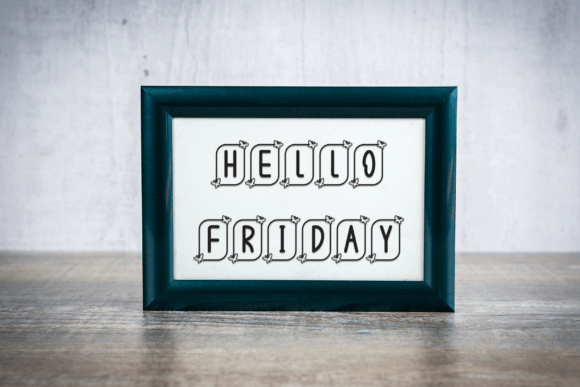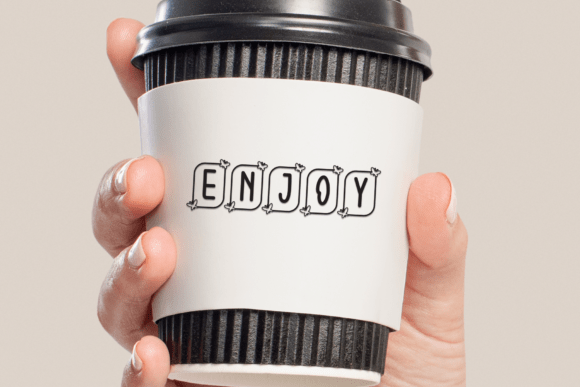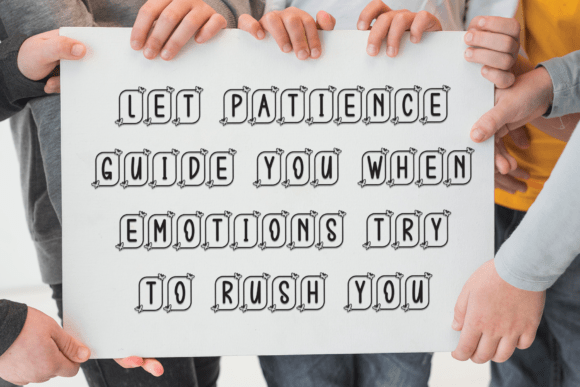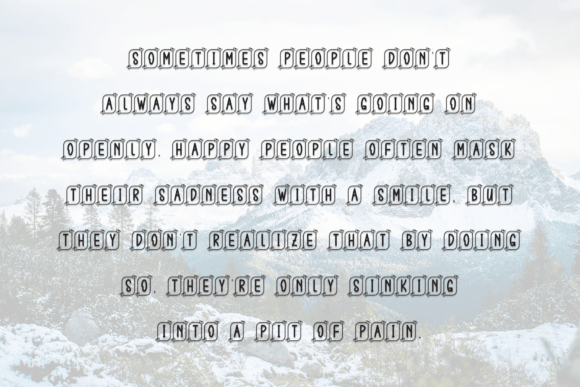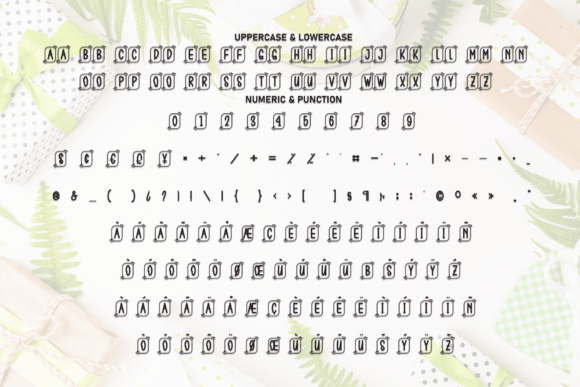
Happy Birthday Font: A Handcrafted Display Font to Infuse Joy and Cheer
Are you looking for a font that can add a touch of warmth and happiness to your designs? Look no further than the Happy Birthday Font! This tranquil, handcrafted display font is perfect for creating charming wedding invitations, heartfelt greeting cards, and more. In this article, we’ll dive into the captivating allure of this font and explore its design elements, uses, and benefits.
The Design: A Masterpiece of Handcrafted Elegance
The Happy Birthday Font is a true masterpiece of handcrafted elegance. Each character is carefully crafted to embody a genuine sense of joy and cheer, making it perfect for any design initiative that requires a sprinkle of happiness. The font’s homely warmth and delightful design elements will transport you to an enchanting world, stirring up your deepest emotions and inspiring your creativity.
The Happy Birthday Font is an ideal choice for creating charming wedding invitations, heartfelt greeting cards, and other celebratory designs. Its unique and magical aura will add a touch of elegance and sophistication to your designs, making them truly unforgettable. Whether you’re a designer, crafter, or DIY enthusiast, this font is sure to become your go-to choice for any project that requires a personal touch.
Design Elements: A Symphony of Happiness
Each press of your keyboard will usher you into an enchanting world, brimming with captivating design elements that will stir up your deepest emotions. The Happy Birthday Font features a range of design elements, including:
• Handcrafted characters with a homely warmth and delightful design
• A unique and magical aura that’s uniquely its own
• Perfect for creating charming wedding invitations, heartfelt greeting cards, and more
• Easy to use and customize for any design initiative
In conclusion, the Happy Birthday Font is a handcrafted display font that embodies a genuine sense of joy and cheer. Its unique design elements, magical aura, and range of uses make it perfect for designers, crafters, and DIY enthusiasts. Whether you’re creating charming wedding invitations, heartfelt greeting cards, or infusing any design initiative with a sprinkle of happiness, this font is sure to become your go-to choice. So why wait? Immerse yourself in the captivating allure of this tranquil font and channel your artistic side today!